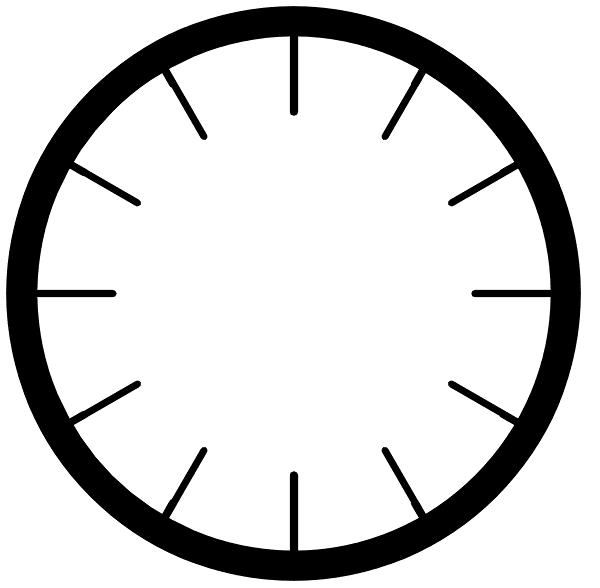
Clocko
Clocko automatically turns the time stamp text into an analog clocks using the OpenType ligatures. Even when the ligatures are turned off, the time is still visible and readable, and it does not change or ruin the layout. Perfect for web usage and...